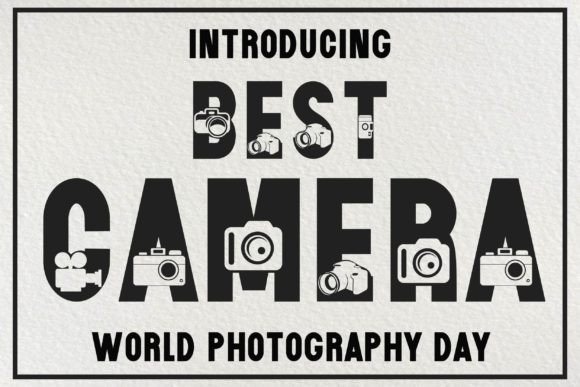
The Perfect Shot: Introducing Best Camera Font
Have you ever found yourself stuck in a creative rut, staring at a blank page or screen, desperate for inspiration to strike? It’s a feeling many designers know all too well. But what if the perfect spark was just a font away? For designers looking to add a touch of cool, original style to their projects, the solution lies in the Best Camera Font.
This unique and eye-catching decorative font is designed to make a statement, whether you’re working on a logotype, headline, or corporate identity project. Its versatility makes it a valuable asset for designers looking to elevate their work and stand out from the crowd. With the Best Camera Font, the possibilities are endless, from apparel industry designs to magazine layouts and everything in between.
Key Features of “Best Camera Font”
- Font Family: Offers a unique combination of serif and sans-serif fonts, providing versatility for various photography-related projects.
- Unique Characteristics: Features a custom-designed camera-inspired icon set, which can be used to enhance the visual appeal of photography-related projects.
Review of Best Camera Font
Overall, I think Best Camera Font has some great qualities, but also a few areas for improvement.
- The font is highly legible, even at smaller sizes, making it perfect for use in camera menus and settings.
- The design is modern and sleek, fitting well with the aesthetic of high-end cameras.
- The font is highly customizable, with a wide range of sizes, styles, and colors available.
- The font can be a bit too bold at times, which can make it difficult to read in certain lighting conditions.
- The font does not support all languages, which can be a limitation for cameras marketed in non-English speaking countries.
- The font can be a bit too flashy for some users’ tastes, which can be a distraction from the camera’s functionality.
While Best Camera Font has some great qualities, it also has a few areas for improvement. With some tweaking to address the limitations, I think this font has the potential to be a top choice for camera manufacturers.
Use the Best Camera Font to create a vintage or retro look for your designs.
Pair the font with high-contrast colors to make it stand out.
Use the font in combination with other design elements, such as textures and patterns, to add depth and interest to your designs.
The Best Camera Font is ideal for:
Photography and photo editing designs.
Retro-themed designs, such as vintage posters and advertisements.
Graphic design projects, such as logos and business cards.
Alternatives to Best Camera Font for Designers
Playfair Display is a luxurious, high-end serif font ideal for use in high-end fashion magazines, luxury brands, and upscale events. Its elegant and sophisticated design makes it perfect for creating a sense of opulence and refinement. Compared to Best Camera Font, Playfair Display has a more classical and traditional feel, making it suitable for a wider range of design applications.
Great Vibes is a modern script font that exudes a sense of relaxation and playfulness. It’s perfect for use in travel, wellness, and lifestyle brands, as well as for creating a laid-back and casual tone. In comparison to Best Camera Font, Great Vibes has a more fluid and organic feel, making it ideal for designers who want to add a touch of whimsy to their work.
Montserrat is a sans-serif font that’s perfect for use in urban, modern, and minimalist designs. Its geometric design makes it ideal for creating a sense of sleekness and sophistication, and it’s often used in tech, finance, and fashion brands. Compared to Best Camera Font, Montserrat has a more modern and edgy feel, making it suitable for designers who want to create a bold and contemporary look.